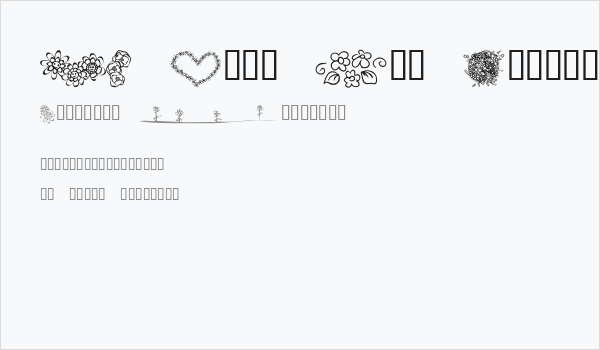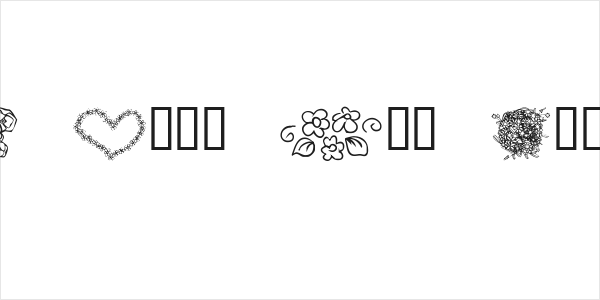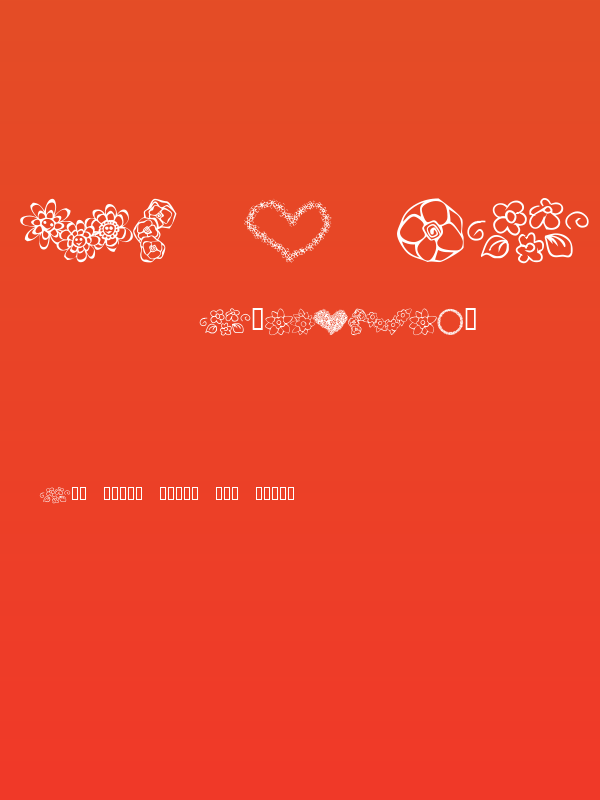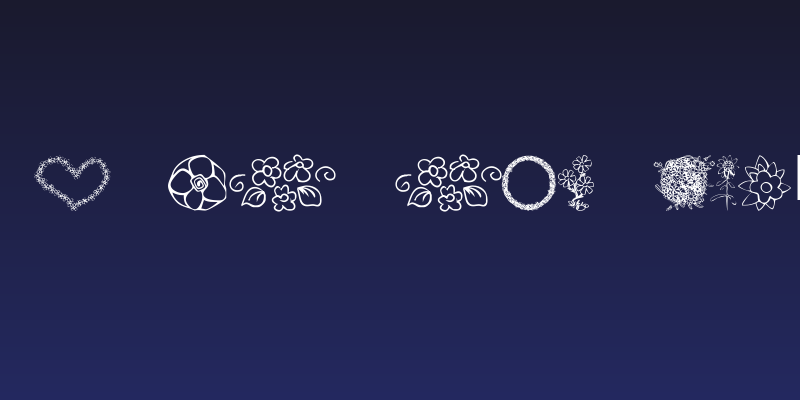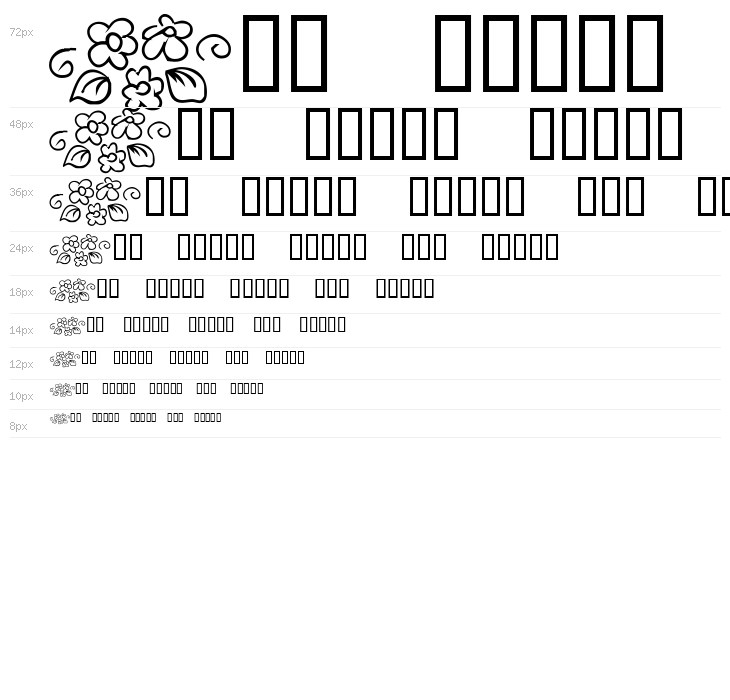
KR Just The Flowers Font
KR Just The Flowers Description
A decorative font featuring hand-drawn floral and heart motifs, with each character represented by a unique flower or nature-inspired illustration. The style is whimsical and playful, with varying line thickness and organic shapes.
Overall StyleDecorative, Whimsical, Playful
Use CaseDecorative elements, Borders, Themed graphics
Proposed ProjectsGreeting cards, invitations, scrapbooking, decorative borders, spring or garden-themed designs.